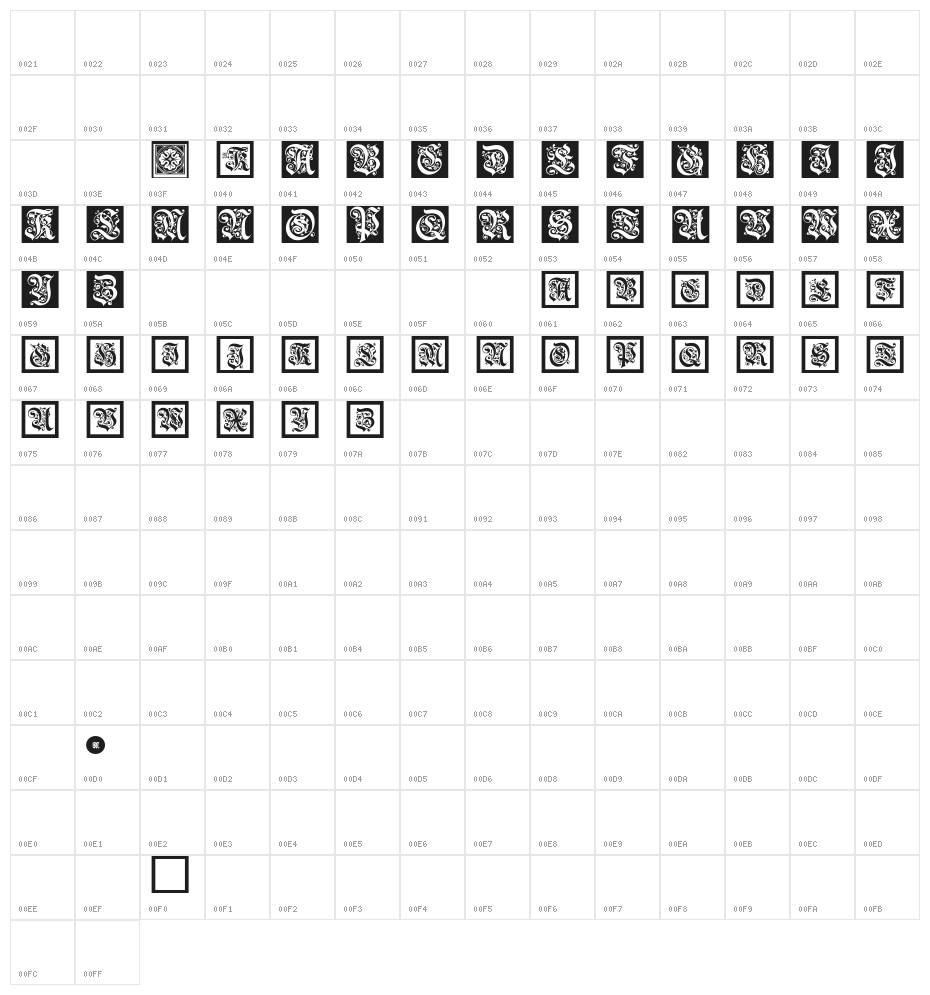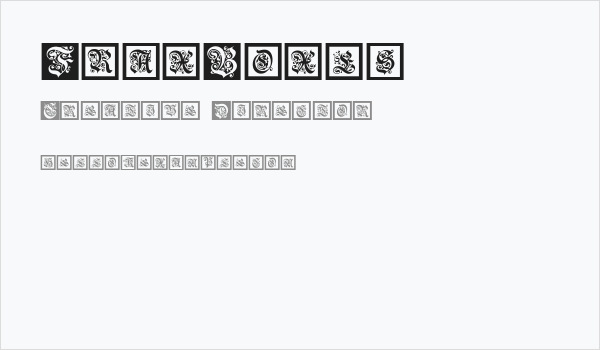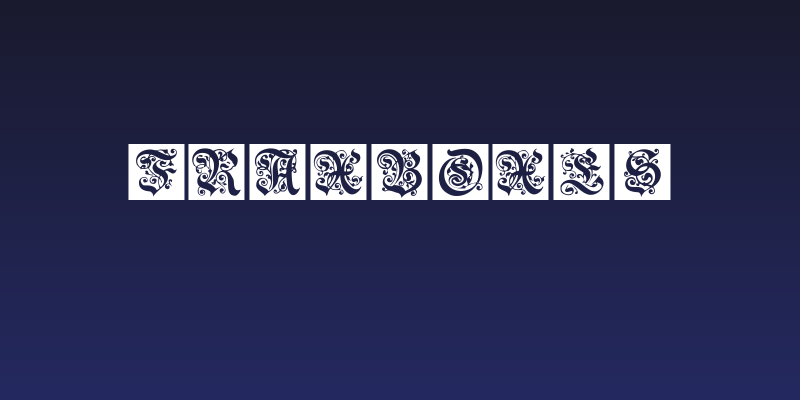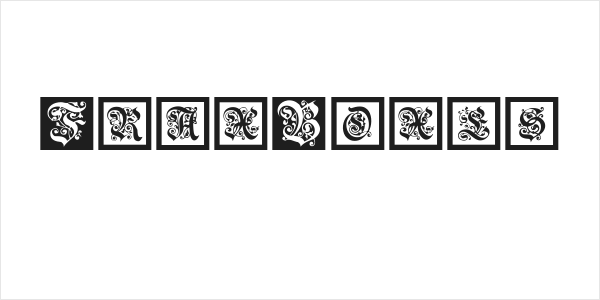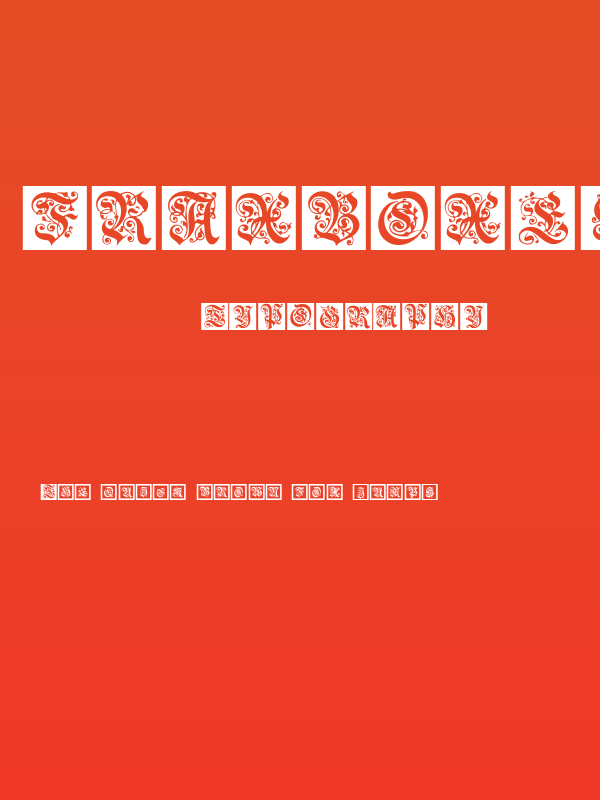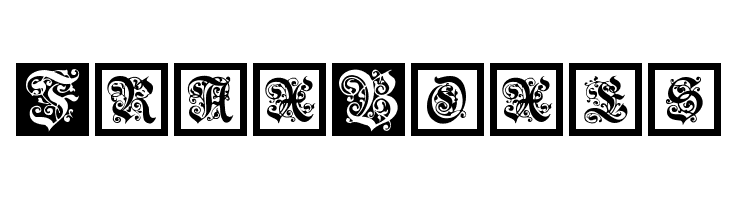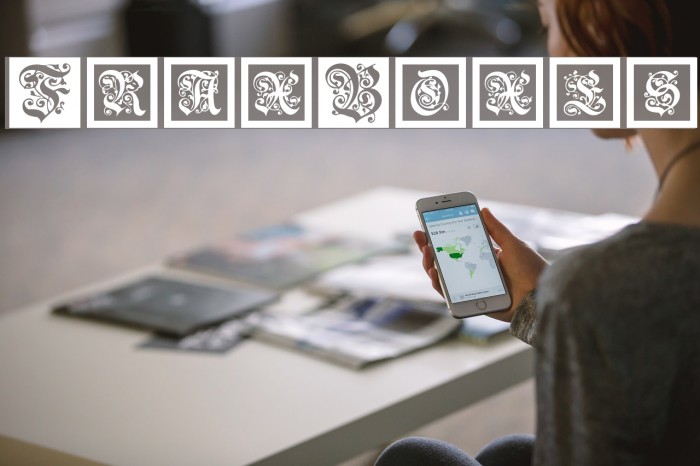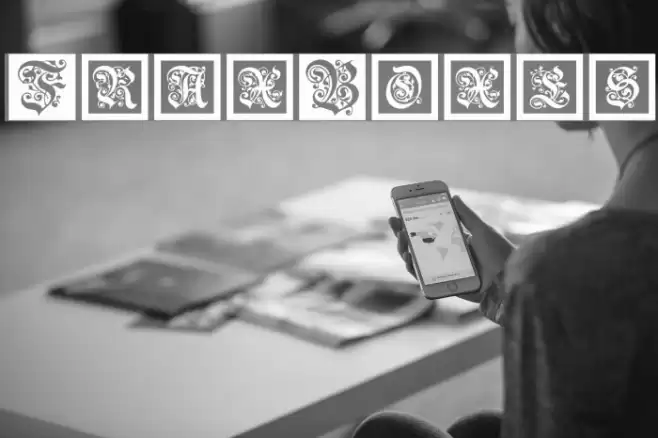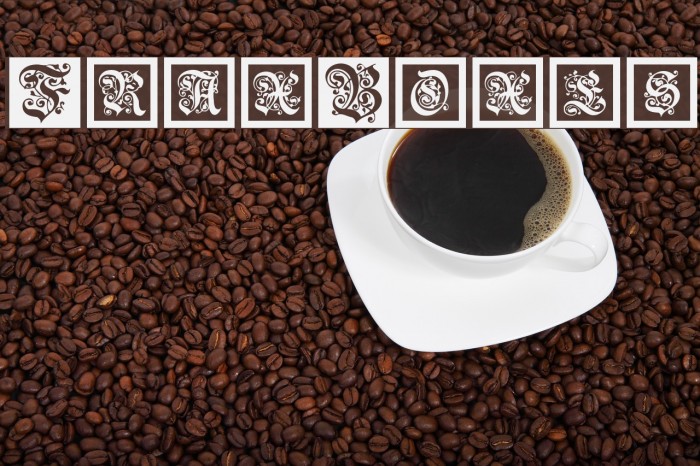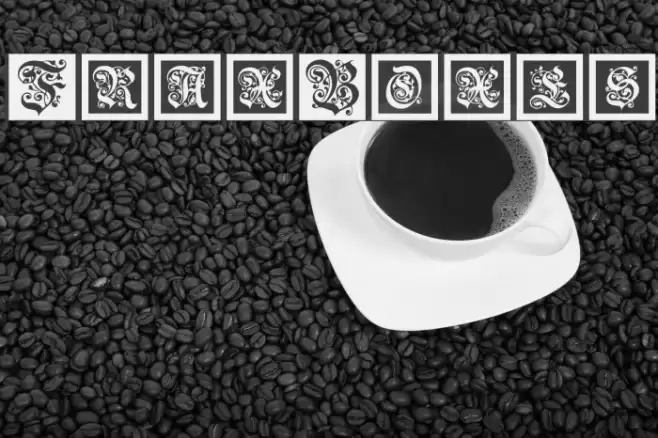
FraxBoxes Font
FraxBoxes Description
This font is a highly decorative and ornate typeface, characterized by its intricate floral and swirling patterns within each letter. Each character is enclosed in a square, giving it a boxed appearance that enhances its decorative nature. The design is reminiscent of vintage or Victorian styles, with a strong emphasis on elaborate detailing. The letters are bold and eye-catching, making them suitable for standout designs where the text is a focal point. The font's unique style makes it ideal for projects that require a touch of elegance and historical flair.
| Overall Style | Vintage |
| Proposed Projects | Ideal for wedding invitations, vintage-themed posters, book covers, and decorative signage. |